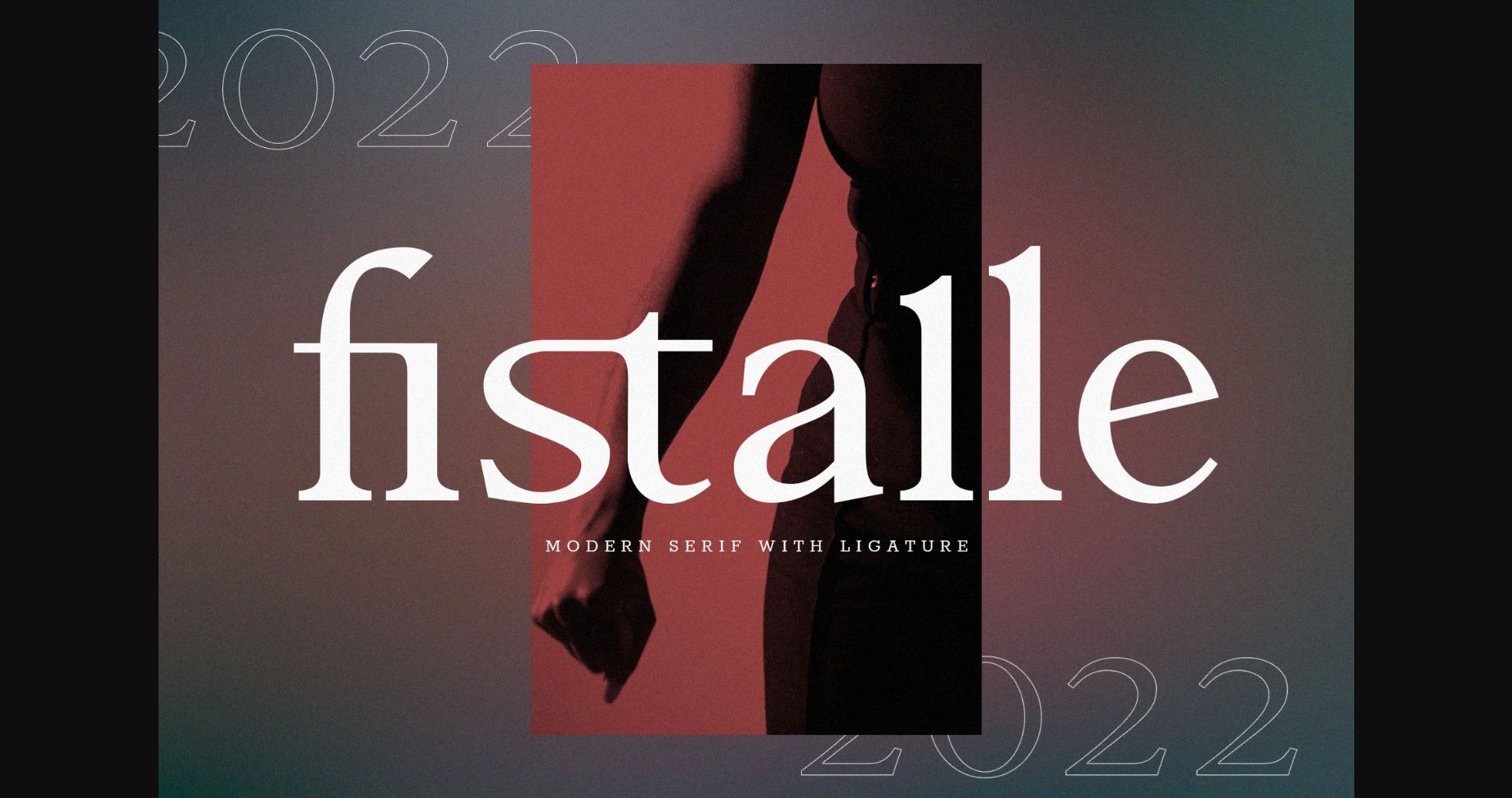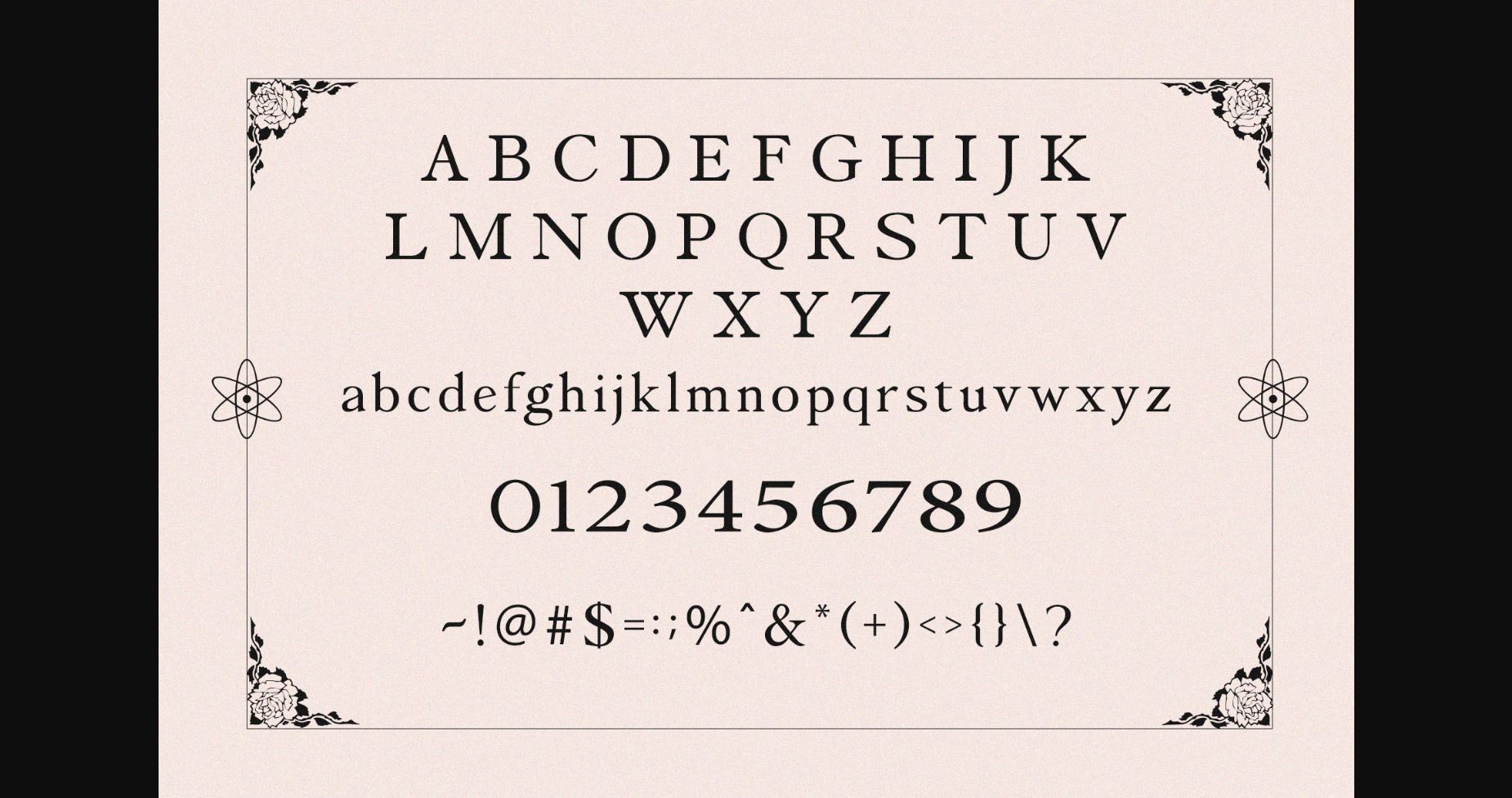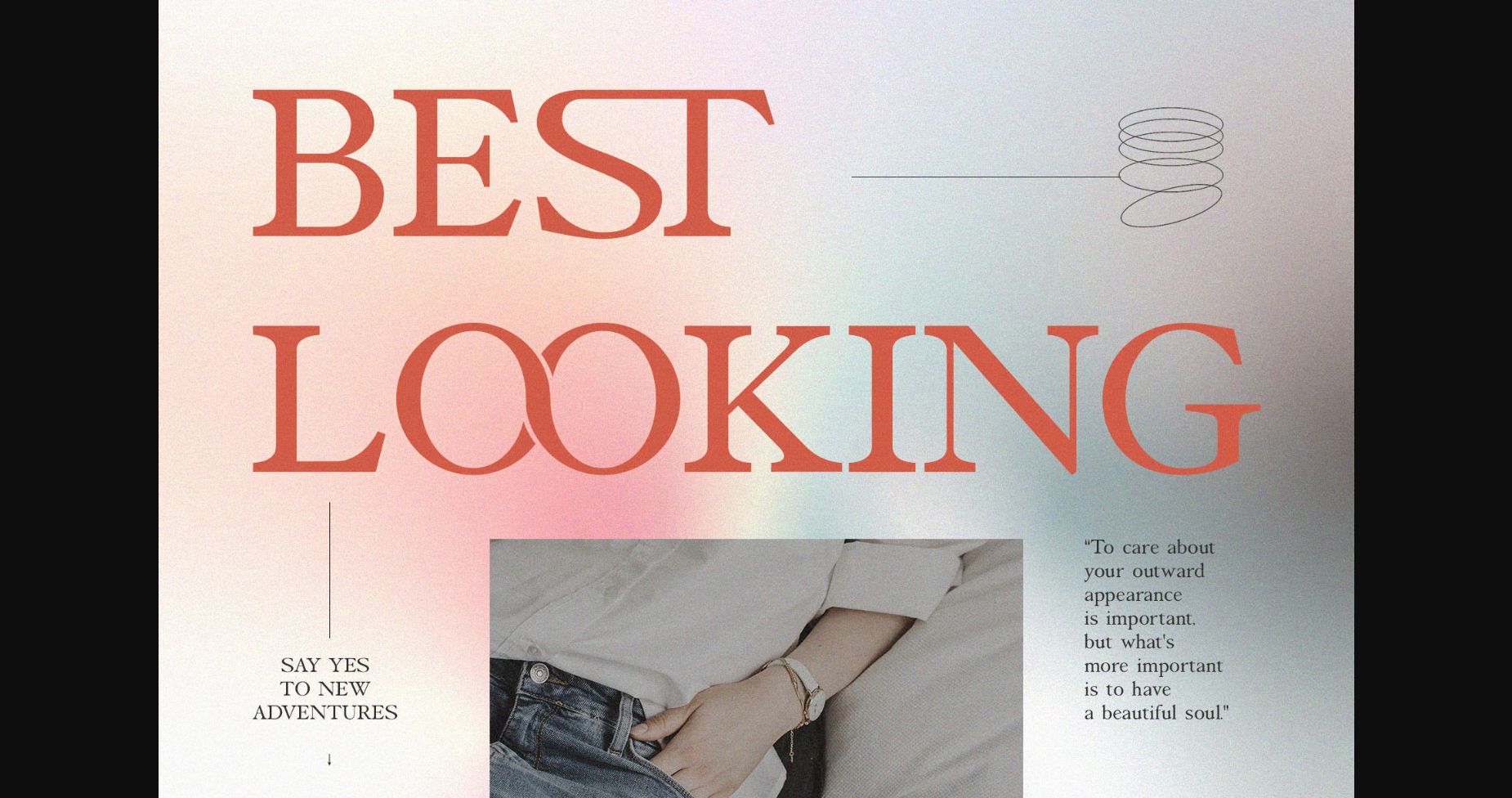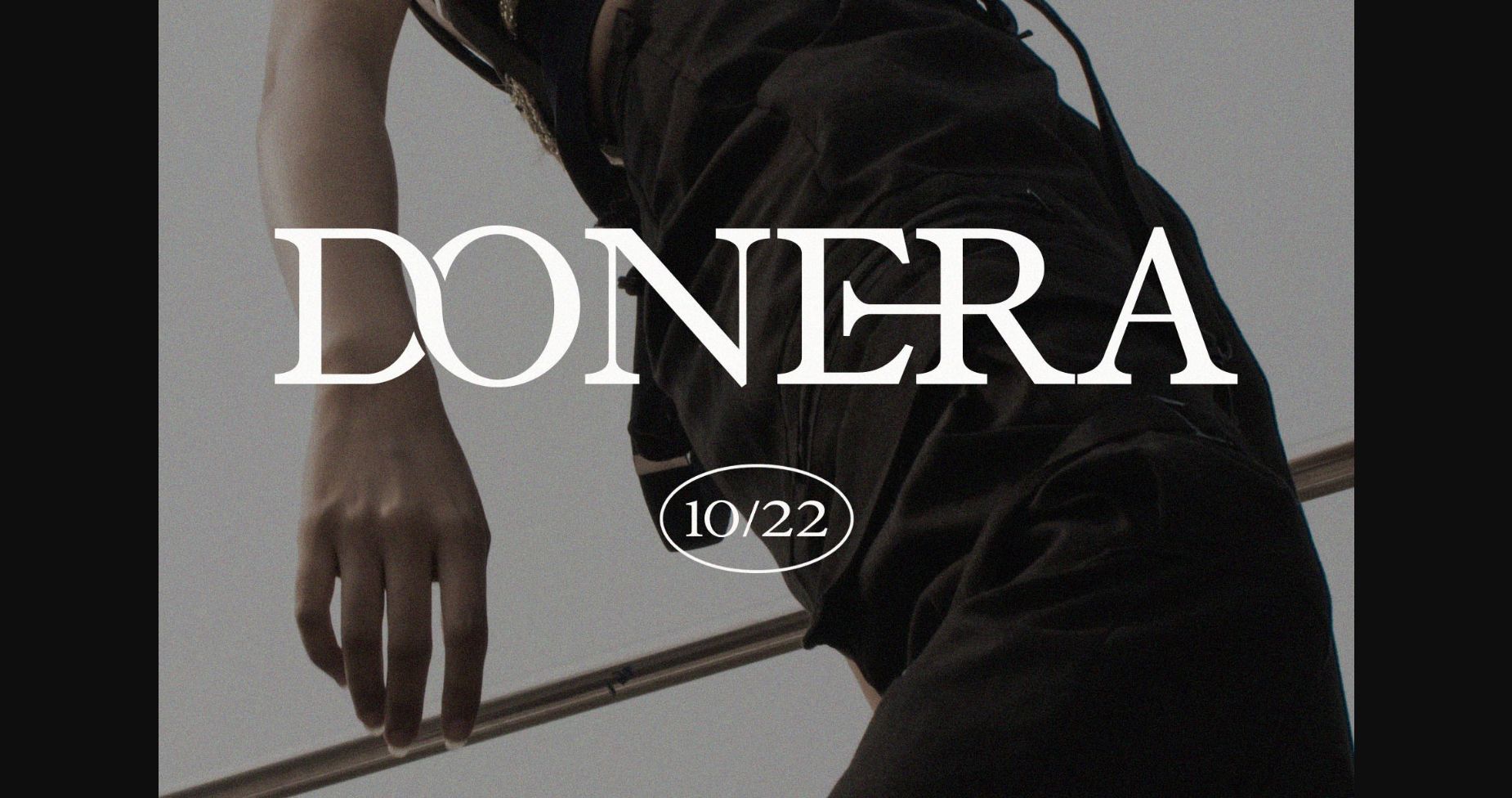
About Fistalle Font
Fistalle is a fun, elegant, and modern sans serif font great for logo design, social media posts, movie titles, book titles, short text, and even long text. It is perfect for your secondary text as well. Create stunning masterpieces with the Fistalle font.